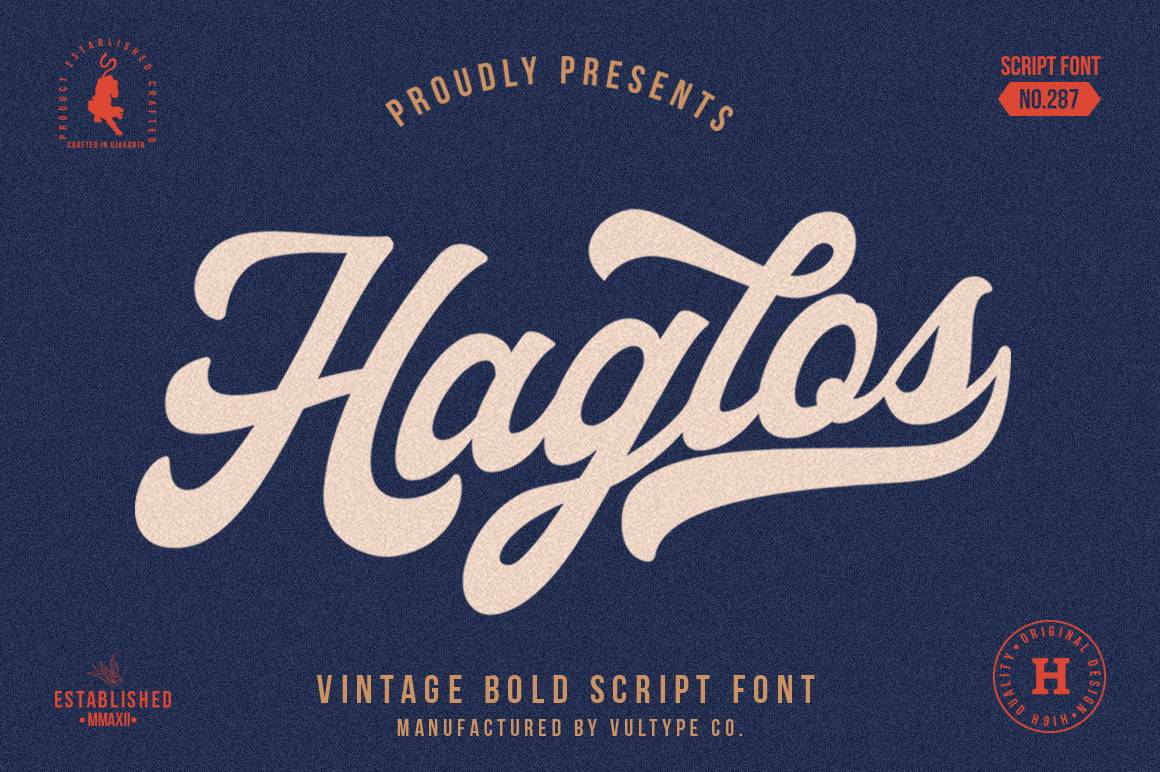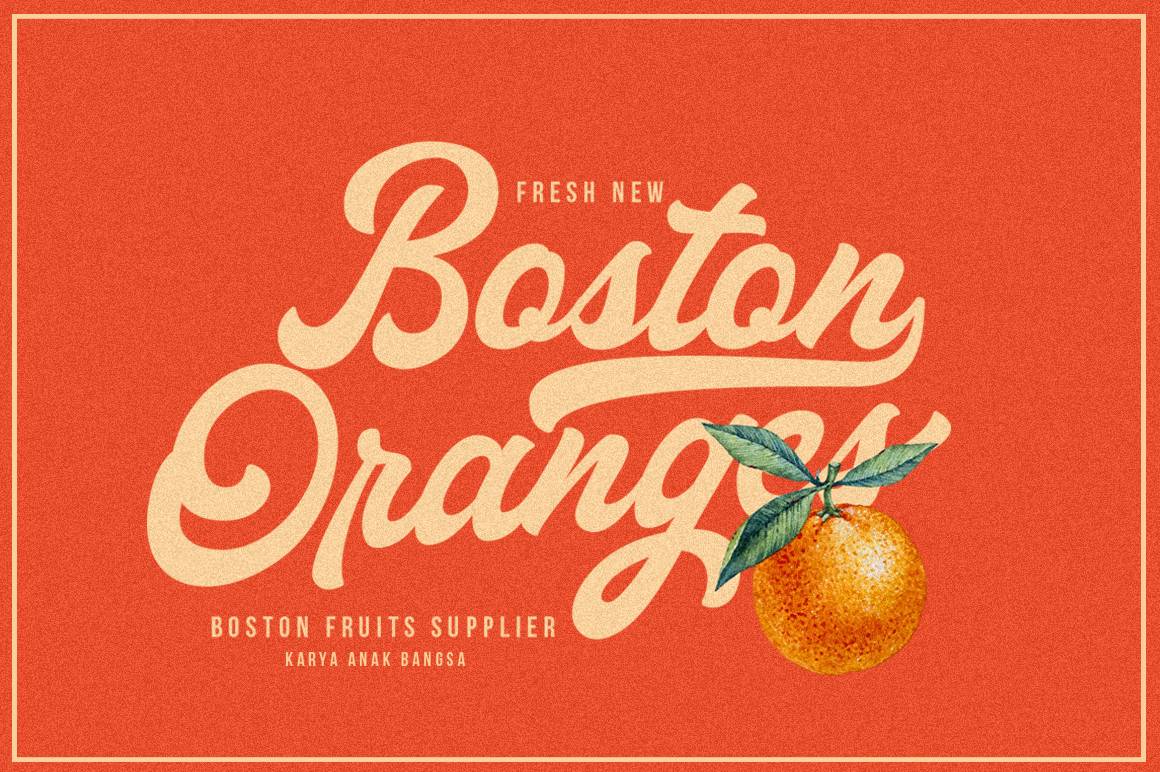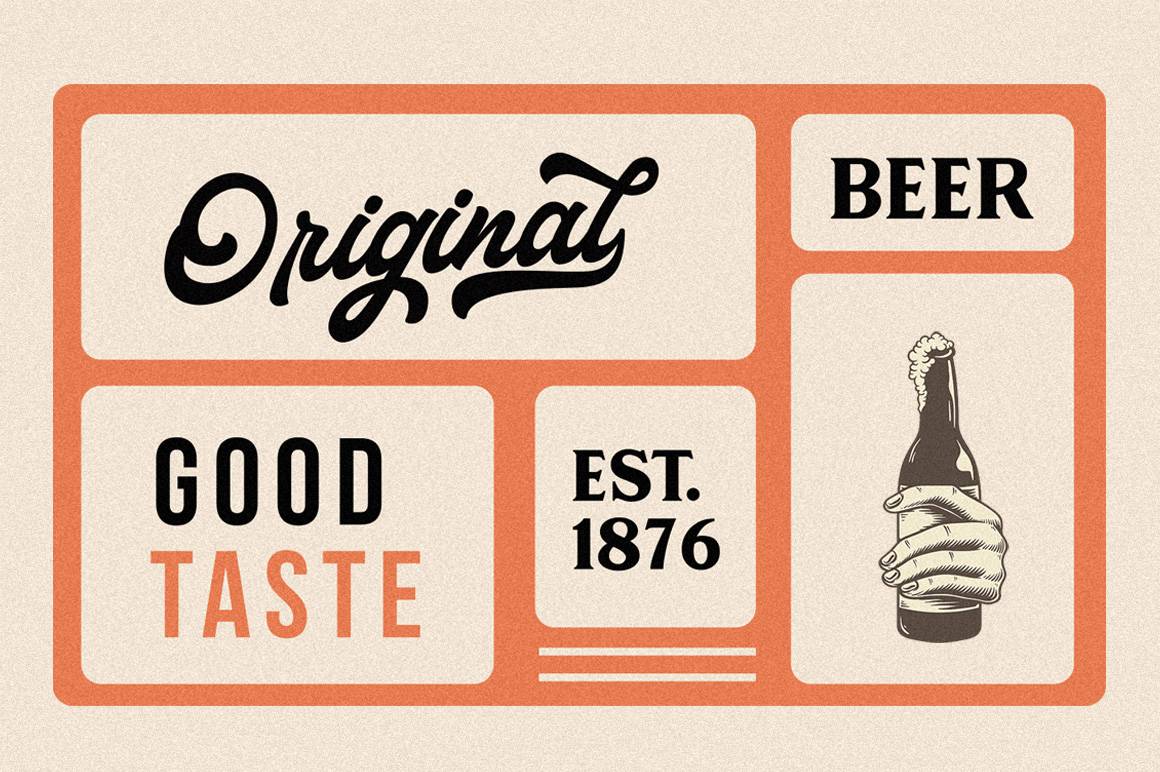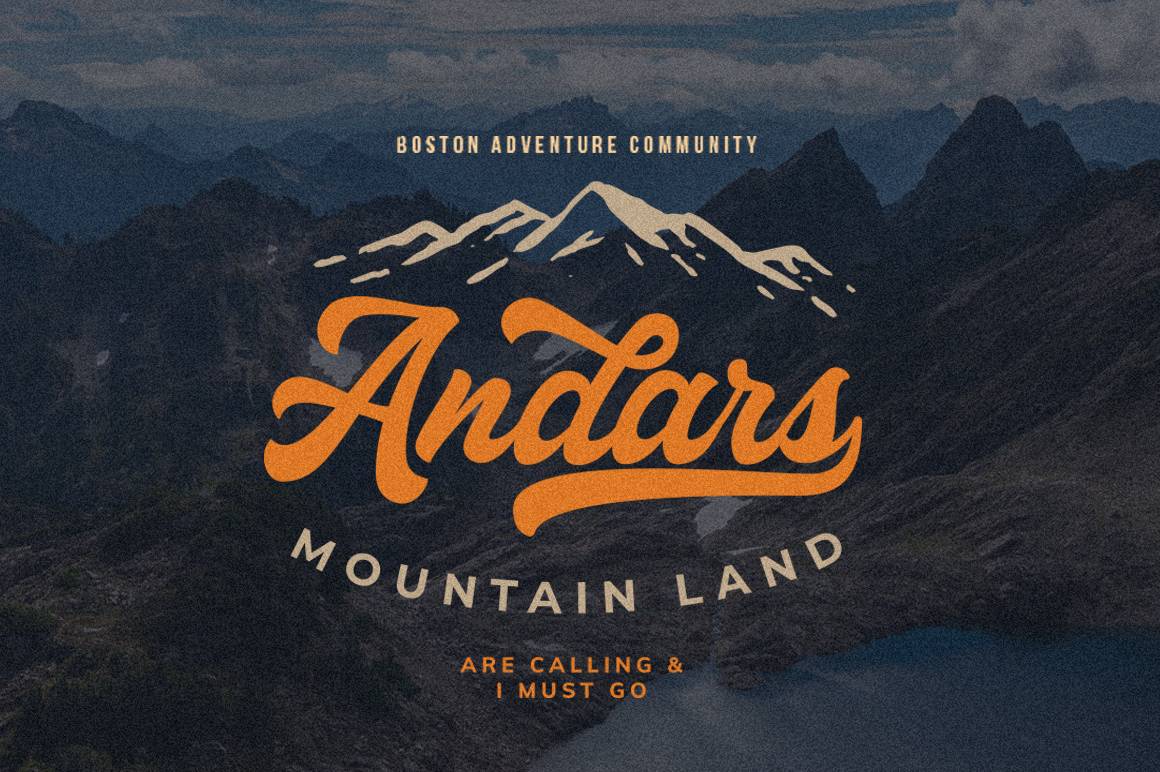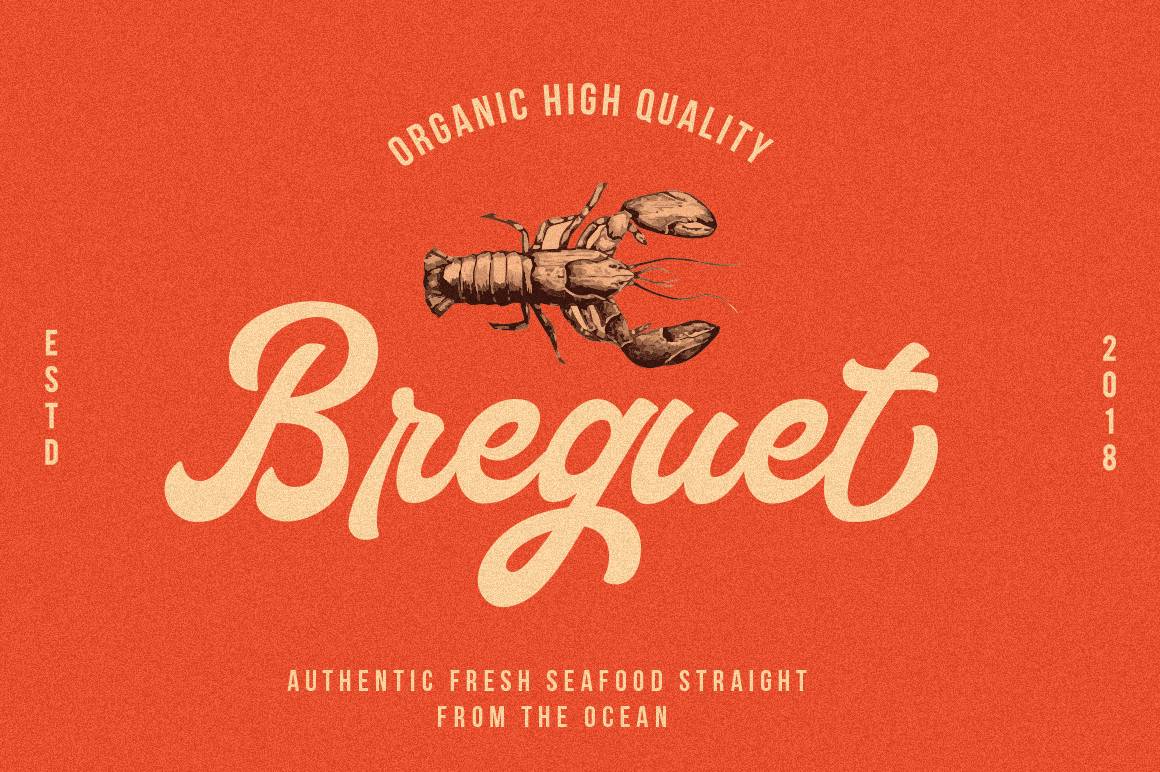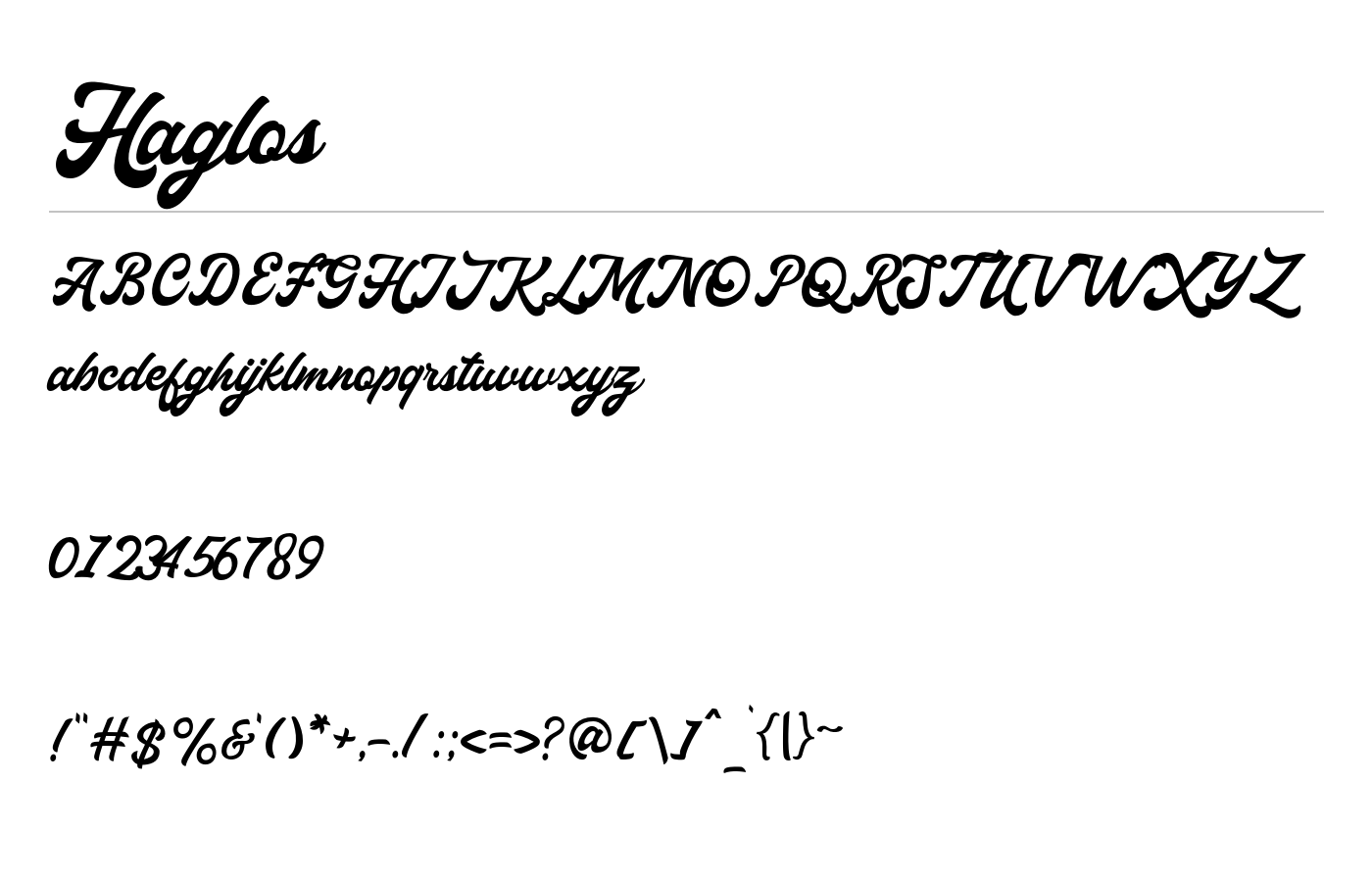
Haglos is a bold, script-style font with smooth, flowing letterforms that evoke a sense of vintage elegance and personal touch. Its moderately high contrast and cursive connections make it ideal for creating stylish logos, packaging, and headlines that require a warm, handcrafted feel while maintaining readability and charm. This font works especially well in branding and creative designs that seek to combine classic sophistication with a friendly, approachable vibe.
Haglos
About Haglos